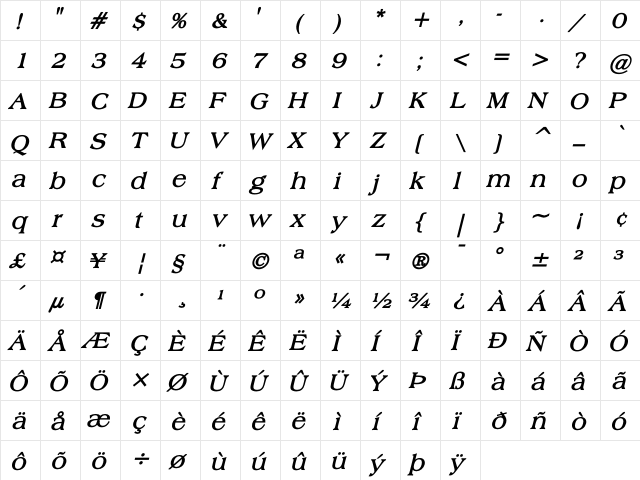
Broadsheet LDO Bold Italic
Design Context for Broadsheet LDO Typeface
Broadsheet LDO is a composed and adaptable typeface that performs quietly and consistently across a wide range of design contexts. Its italic angle brings a sense of urgency and motion to the letterforms. Its bold stroke weight gives it real presence on the page.
Pro Tip: Use Broadsheet LDO for emphasis, pull quotes, and subheadings where its slanted energy can add rhythm to the layout.